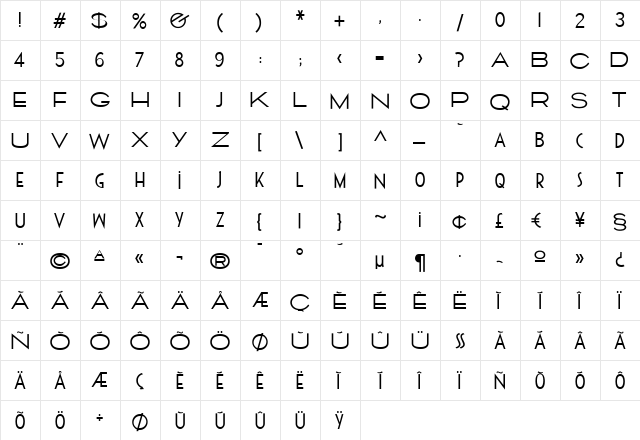
Cassandra Normal Regular
Design Context for Cassandra Normal Typeface
Cassandra Normal takes a measured approach to typography — its balanced proportions and neutral character make it a reliable workhorse for both digital and print work.